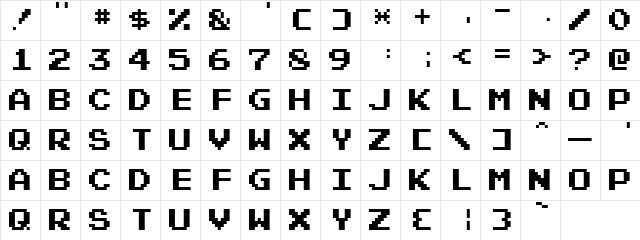
Emulator Normal
Design Context for Emulator Typeface
Emulator takes a measured approach to typography — its balanced proportions and neutral character make it a reliable workhorse for both digital and print work.